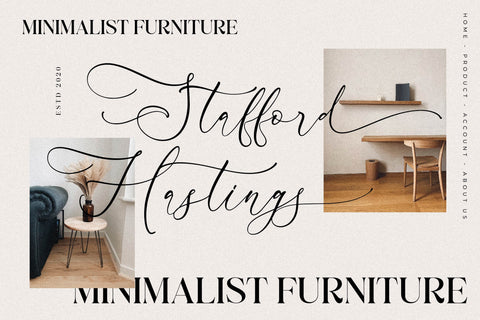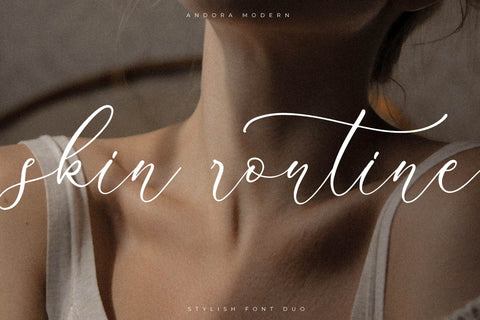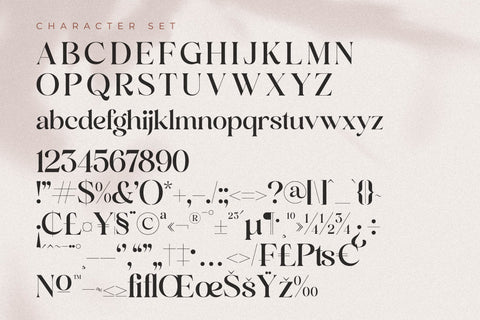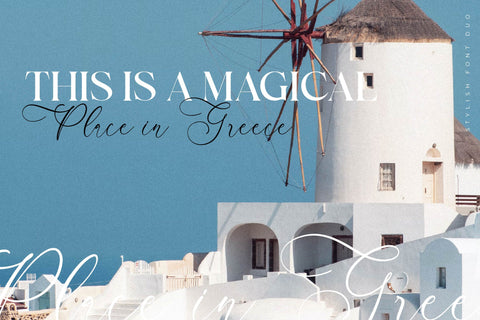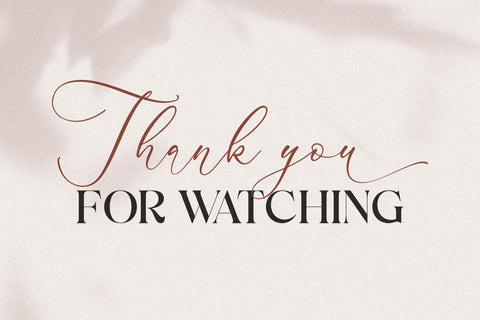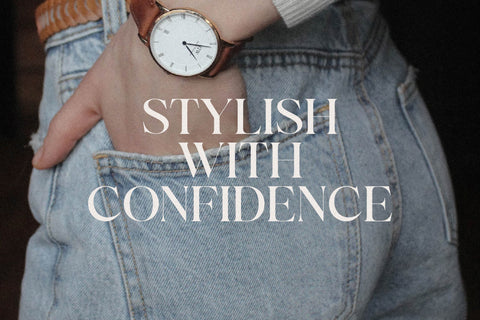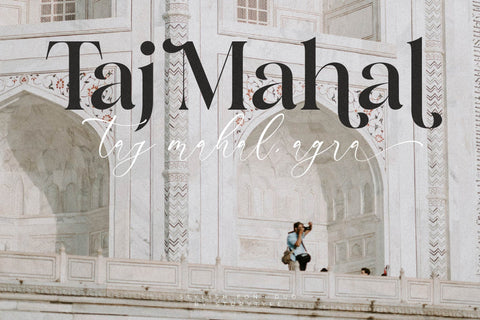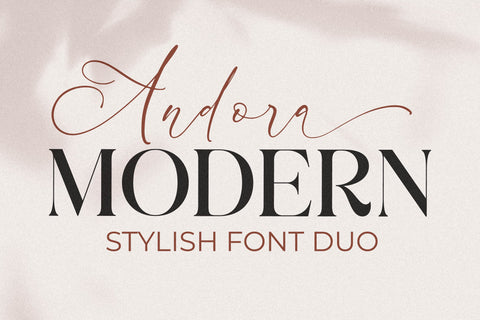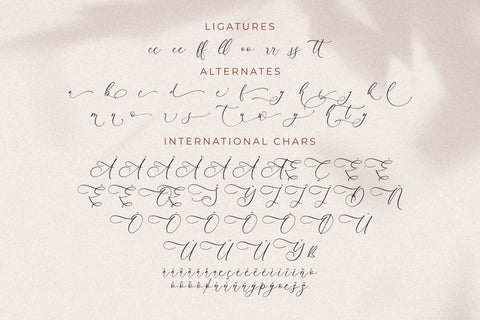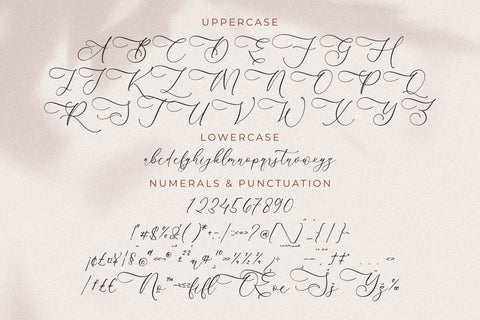
Andora Modern Font Duo
Proudly present Andora Modern Font Duo , created by Storytype,
A serif and script typeface that has own unique style & modern look.